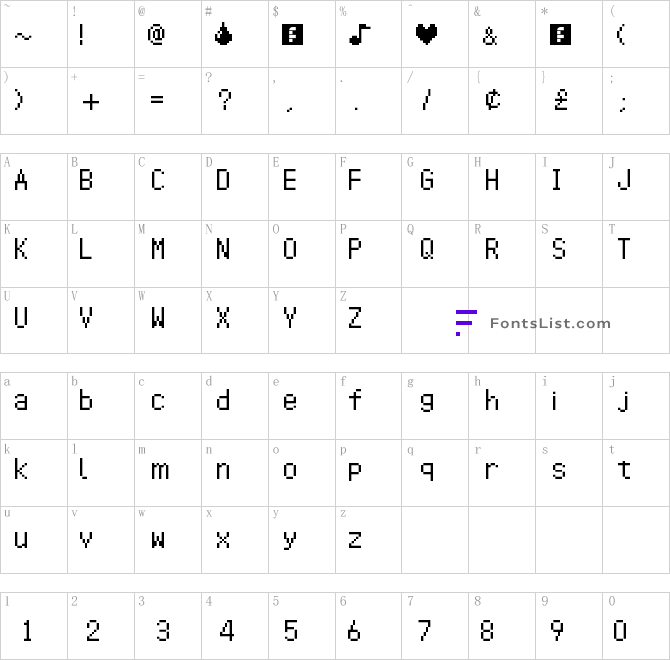
- Font Name:Animal Crossing: Wild World
Animal-Crossing-Wild-World-Regular.ttf is a very beautiful artistic font, Animal-Crossing-Wild-World-Regular.ttf is widely used in the design and printing of various books and pictures,Animal-Crossing-Wild-World-Regular.ttf has a strong visual impact,Animal-Crossing-Wild-World-Regular.ttf is a commonly used font in newspapers, magazines and books, and is used in posters, e-commerce Poster design, store design, logo design, font design and other fields.Animal-Crossing-Wild-World-Regular.